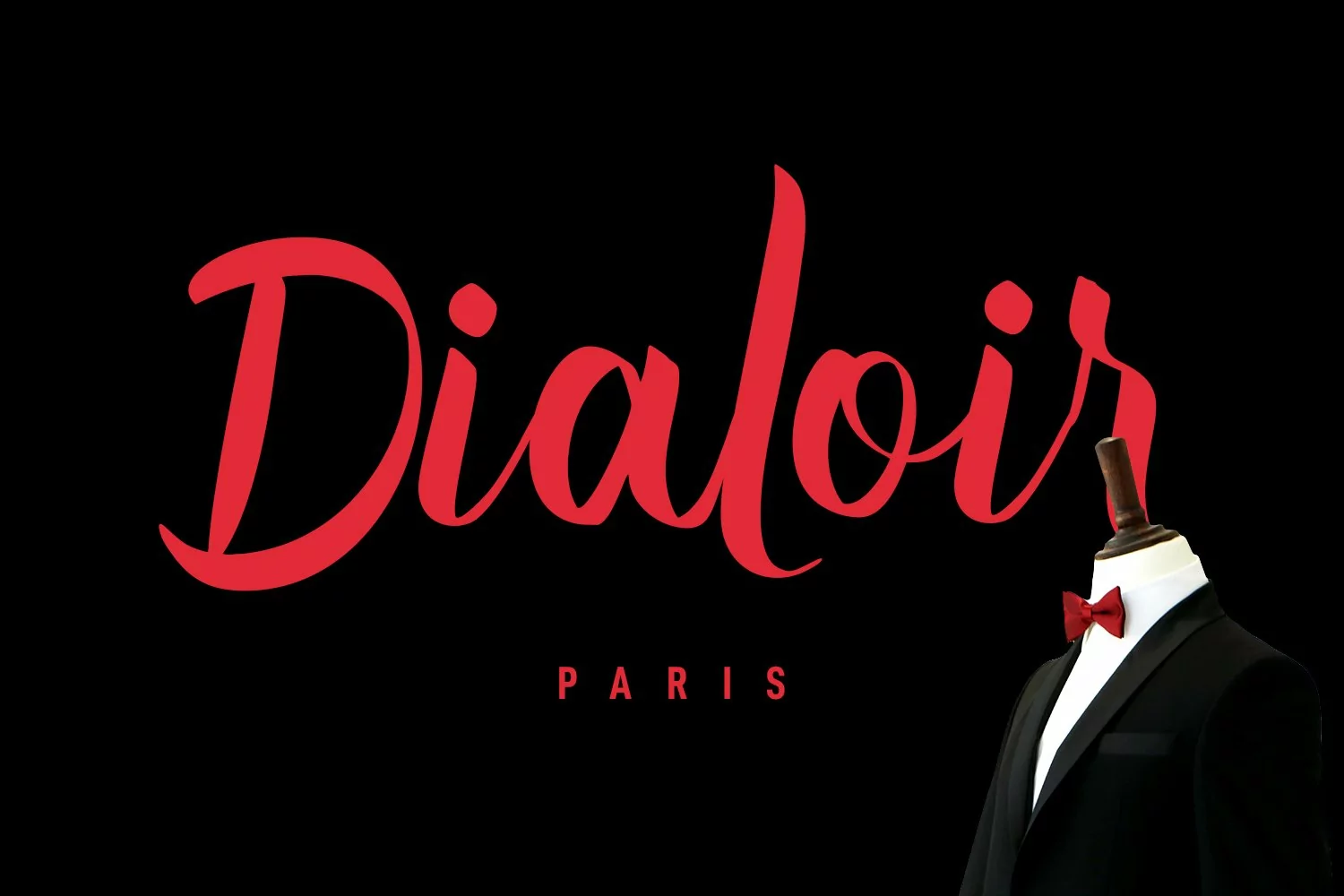
Alexturners is a stylish script font. With medium contrast stroke, fun character with a bit of ligatures and lowercase alternates. To give you an extra creative work. Alexturners font support multilingual more than 100+ language. This font is good for logo design, Social media, Movie Titles, Books Titles, a short text even a long text letter and good for your secondary text font with sans or serif. Make a stunning work with Alexturners font.
Alexturners